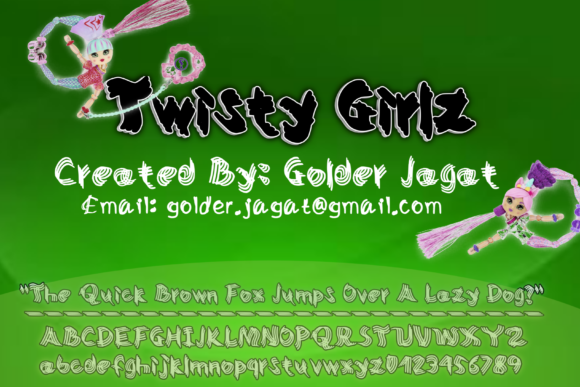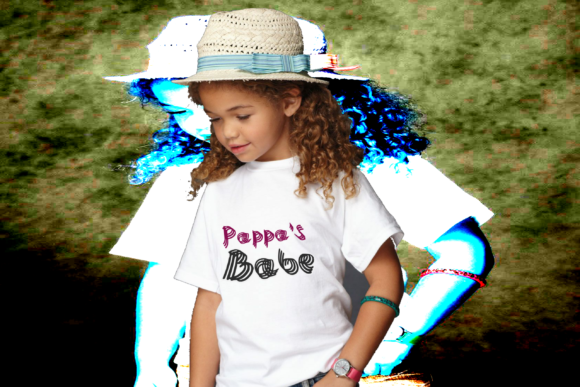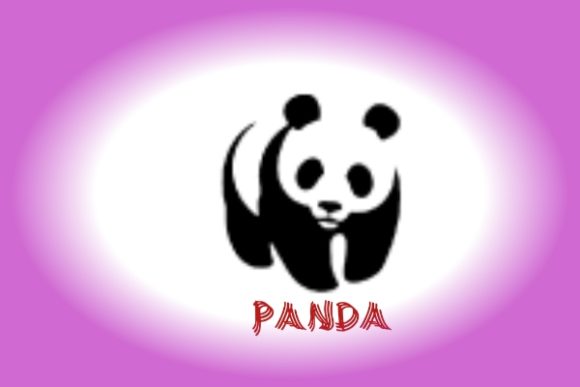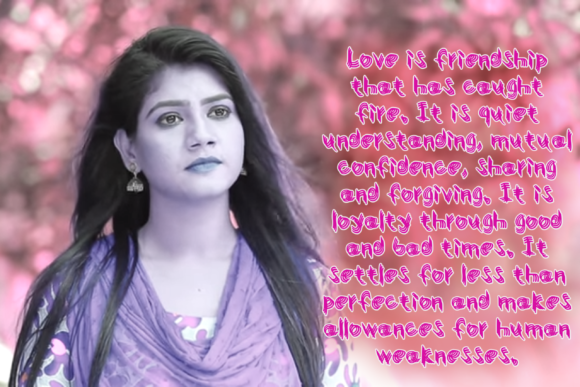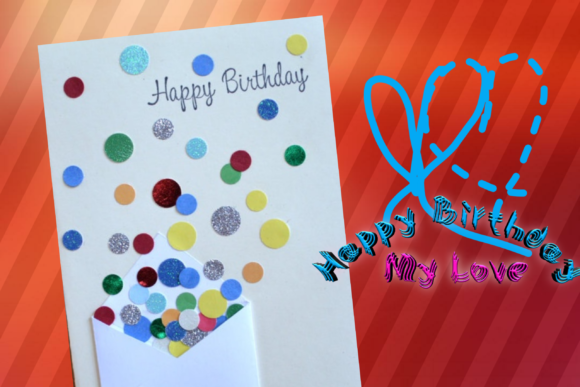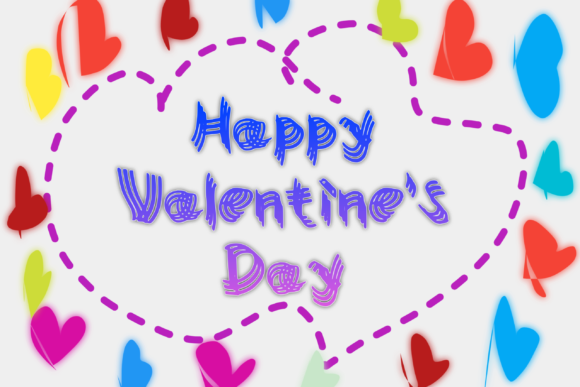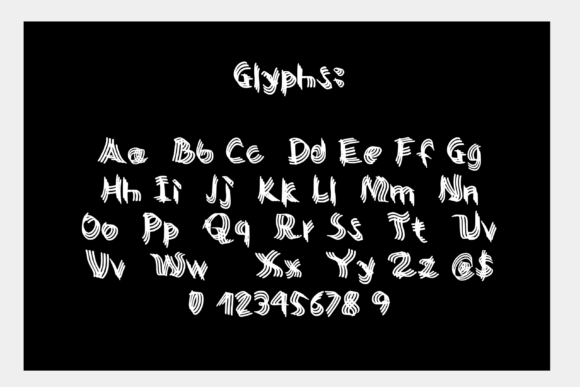
About Twisty Girlz Font
Twisty Girlz is a playful display font with a unique style. Add it to your most creative ideas and notice how it makes them come alive!